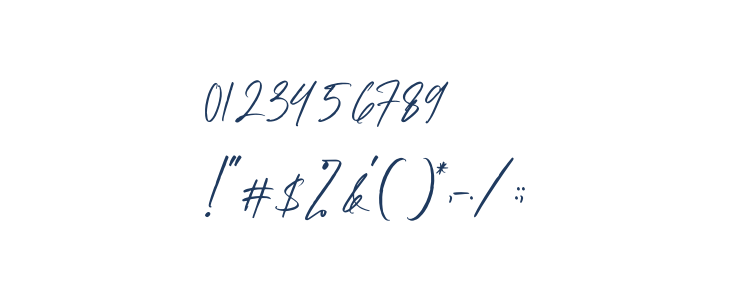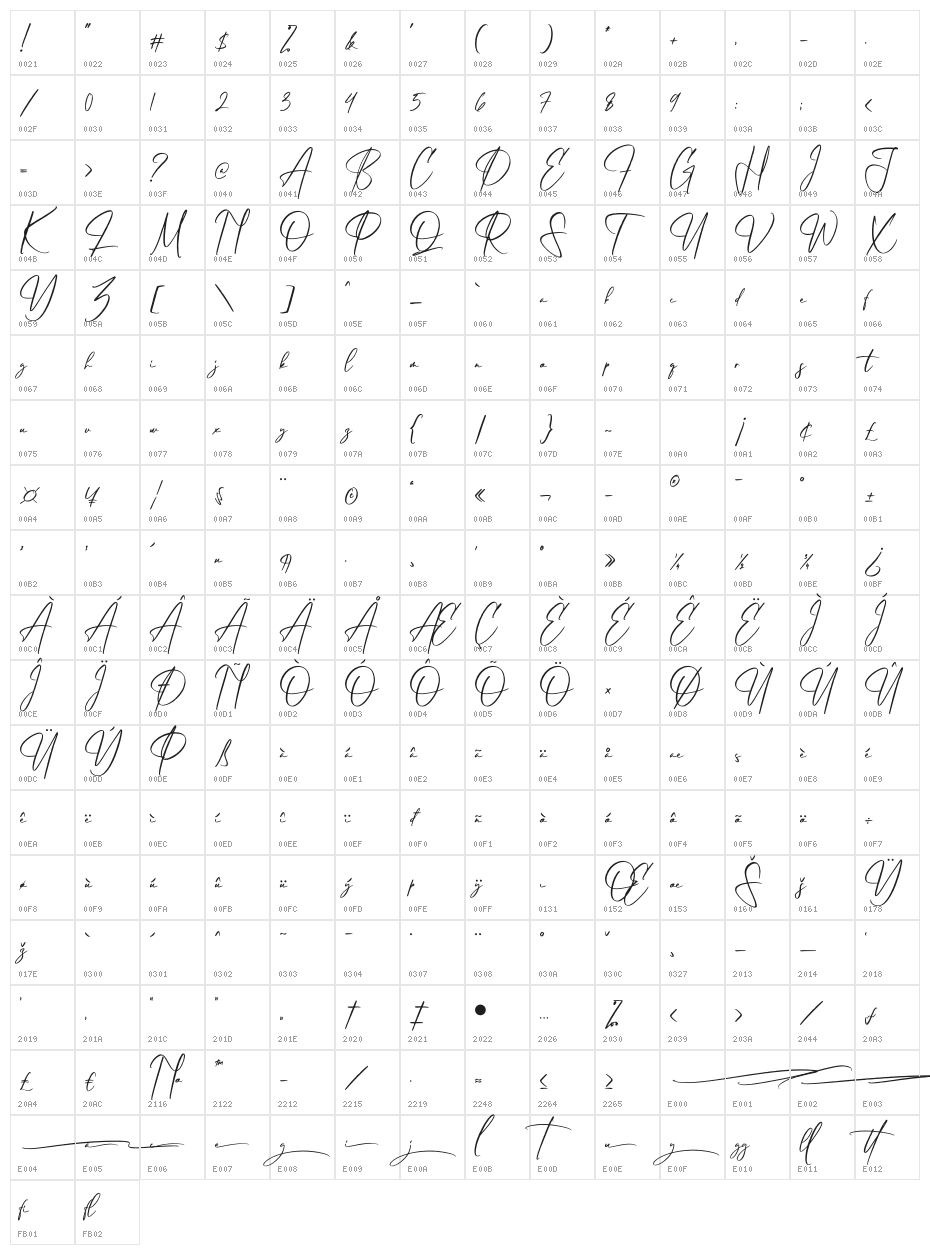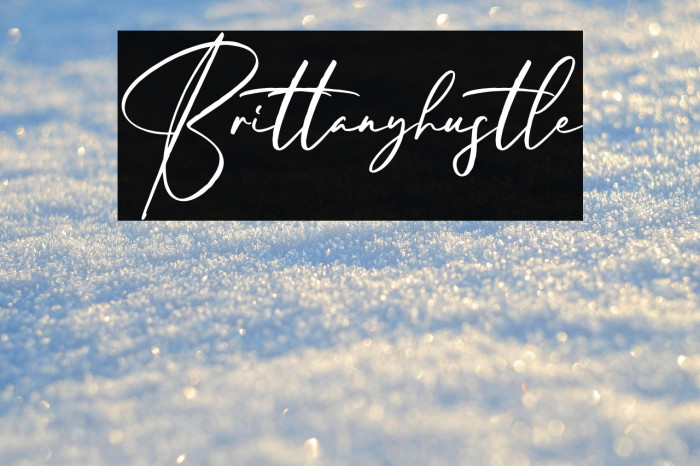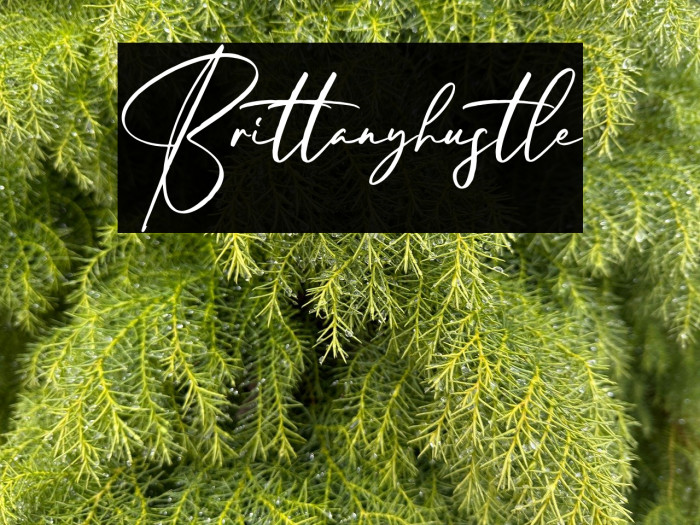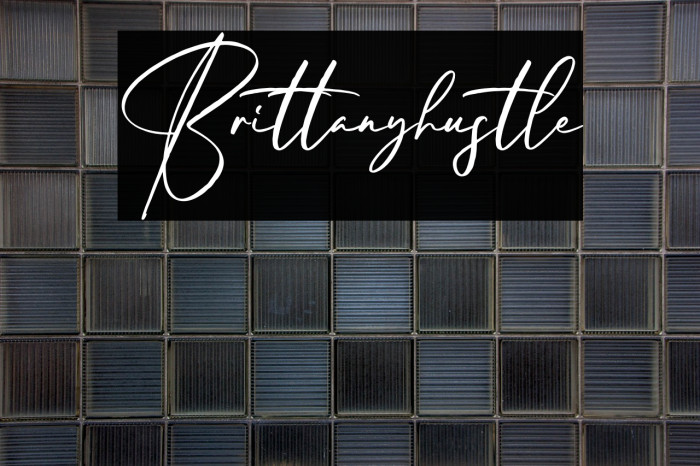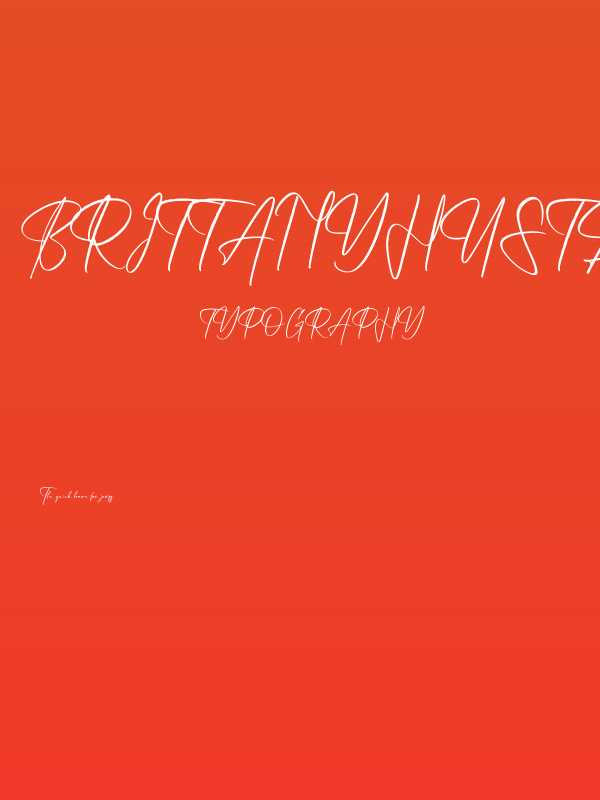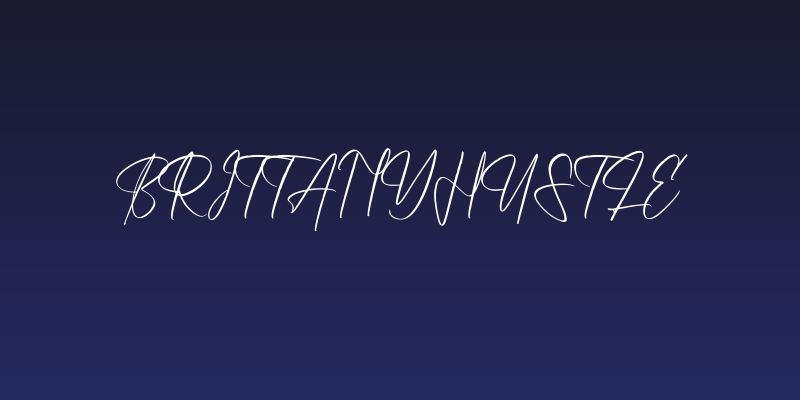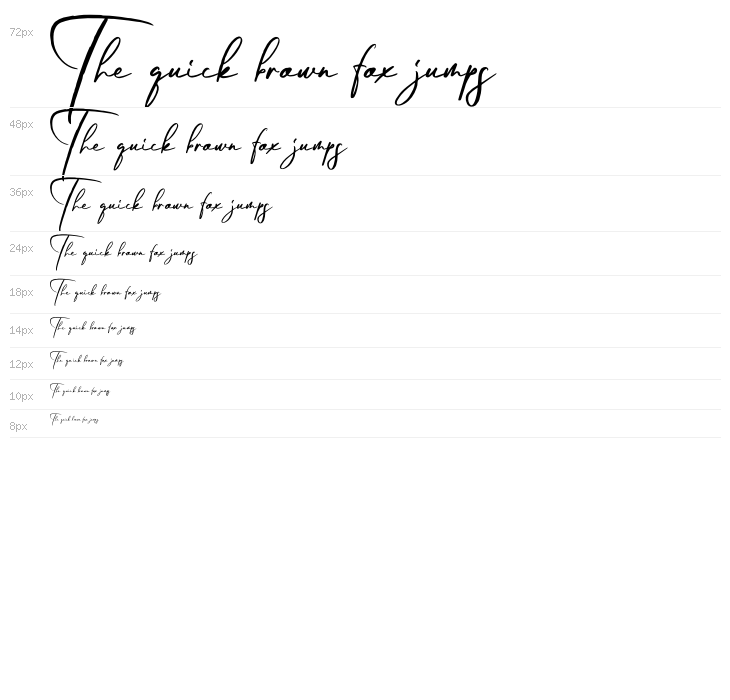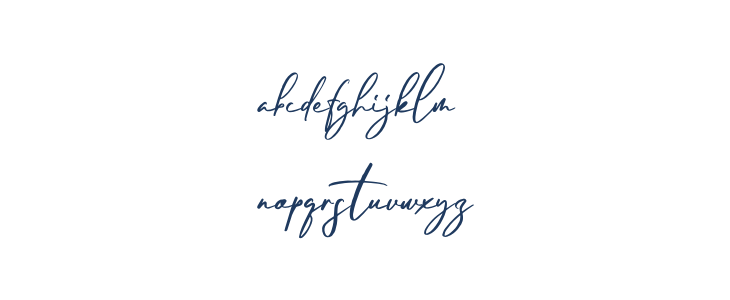
Brittanyhustle Font
Brittanyhustle Description
This font features a flowing, cursive style that mimics elegant handwriting. The uppercase letters are tall and slender, with a slight slant that adds a dynamic feel. The lowercase letters are more compact, maintaining the fluidity and grace of the script. Numbers and special characters are designed to complement the alphabet, with consistent line thickness and a cohesive style. The overall appearance is sophisticated and artistic, making it suitable for projects that require a personal touch.
| Overall Style | Elegant, Artistic |
| Proposed Projects | Ideal for wedding invitations, greeting cards, personal branding, and artistic projects that require a touch of elegance and sophistication. |